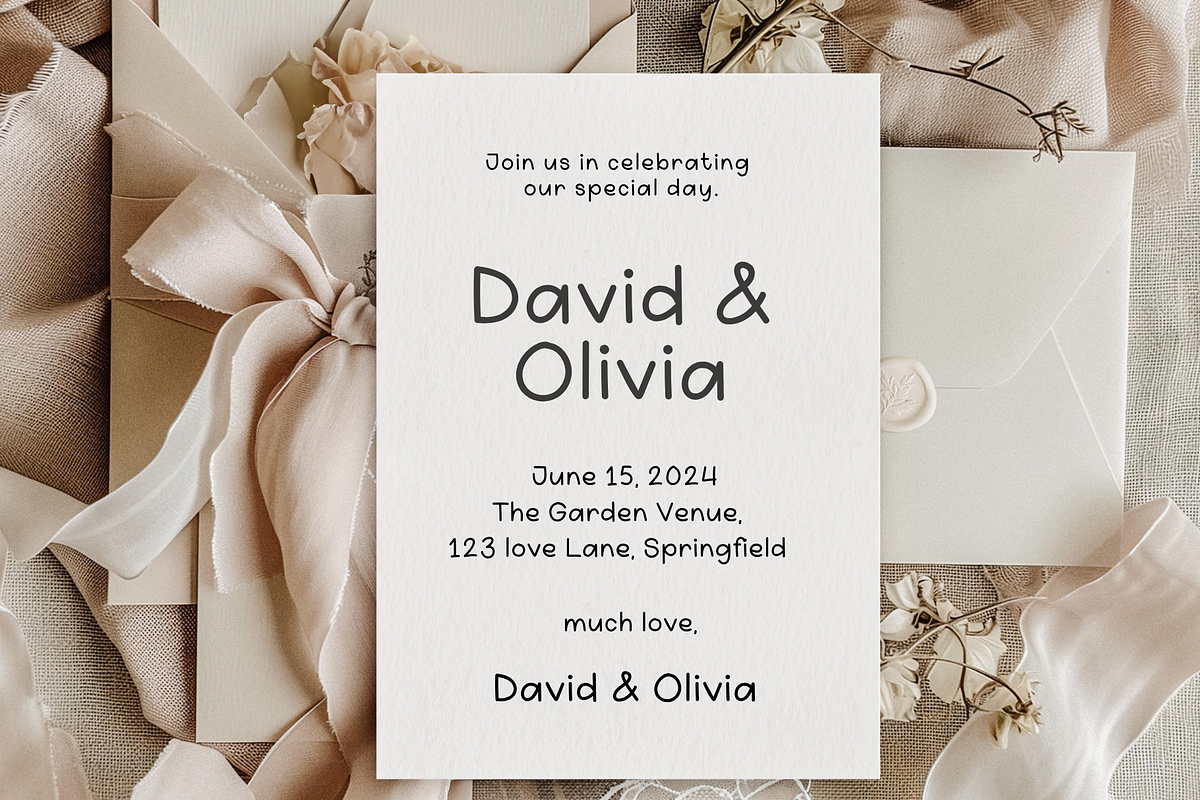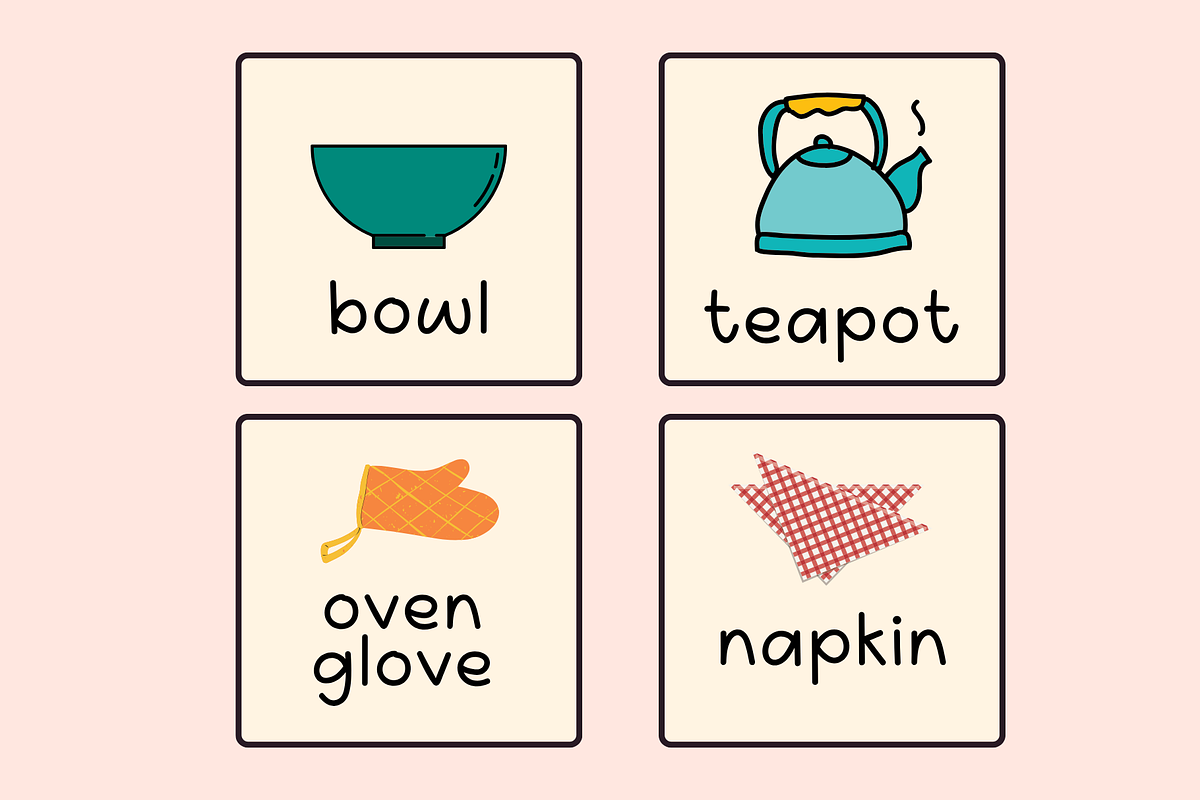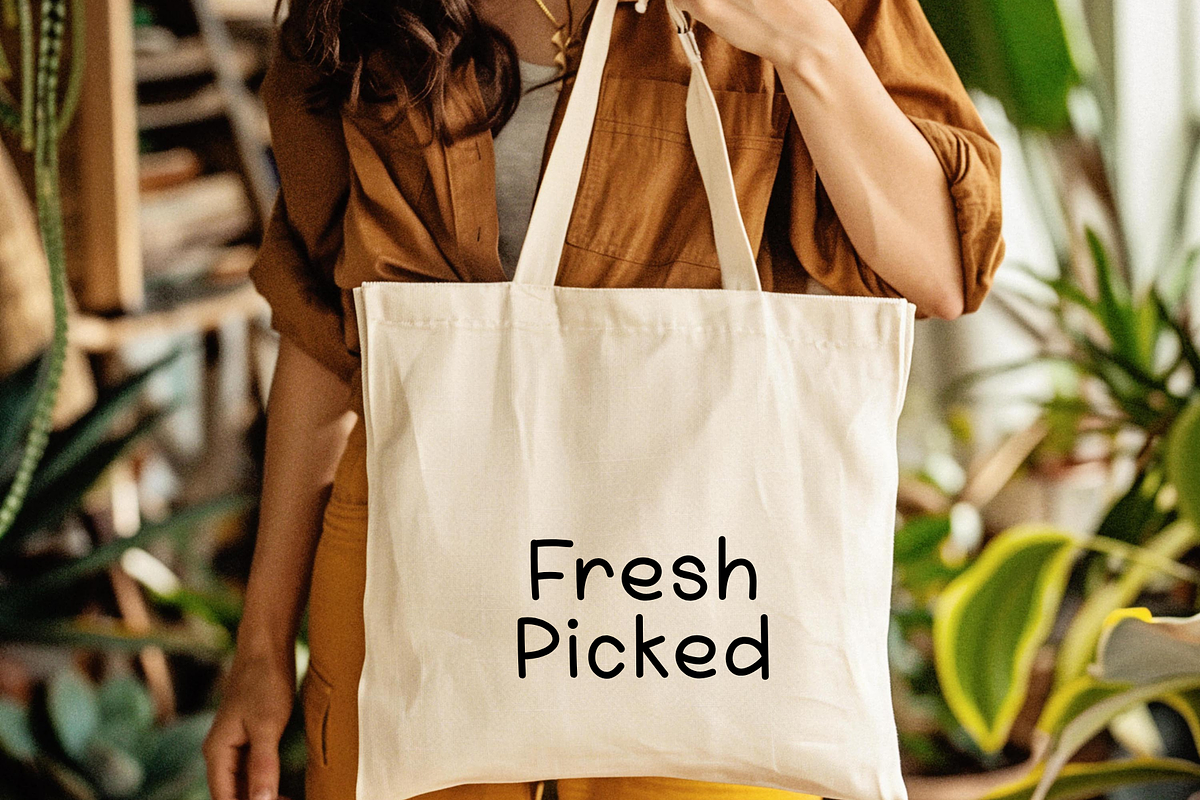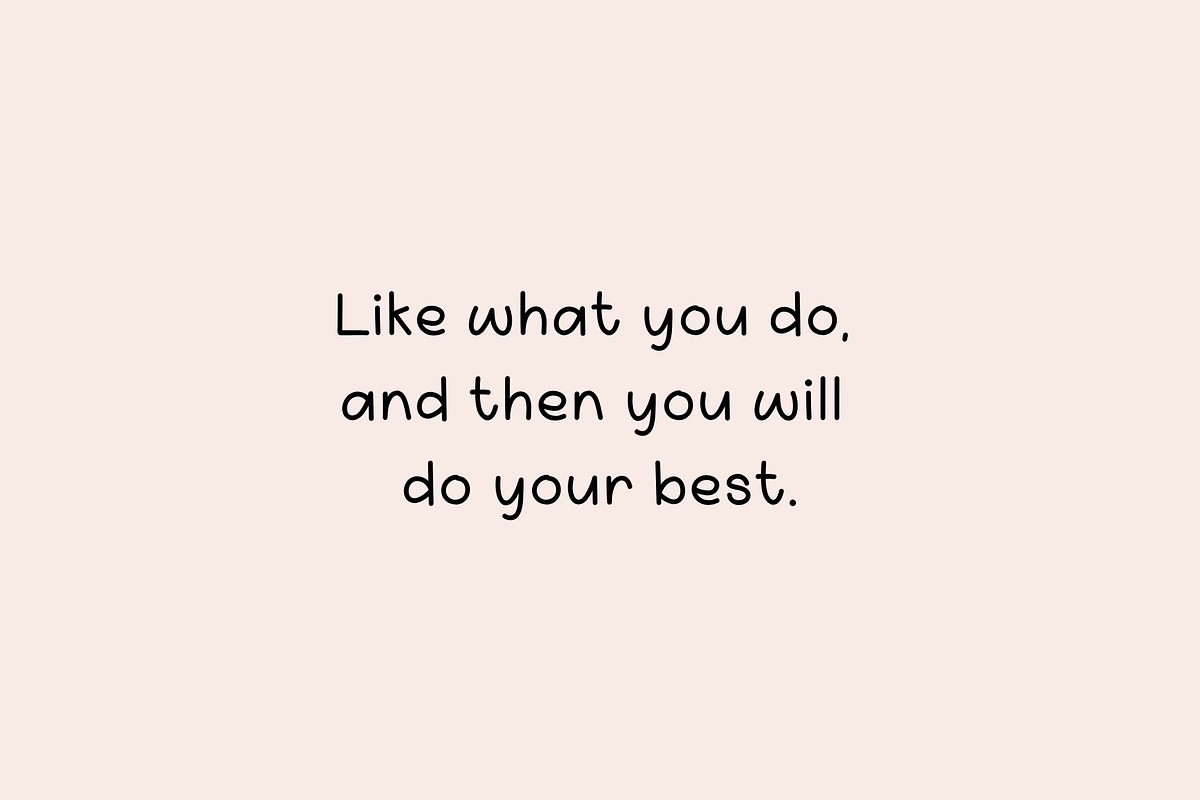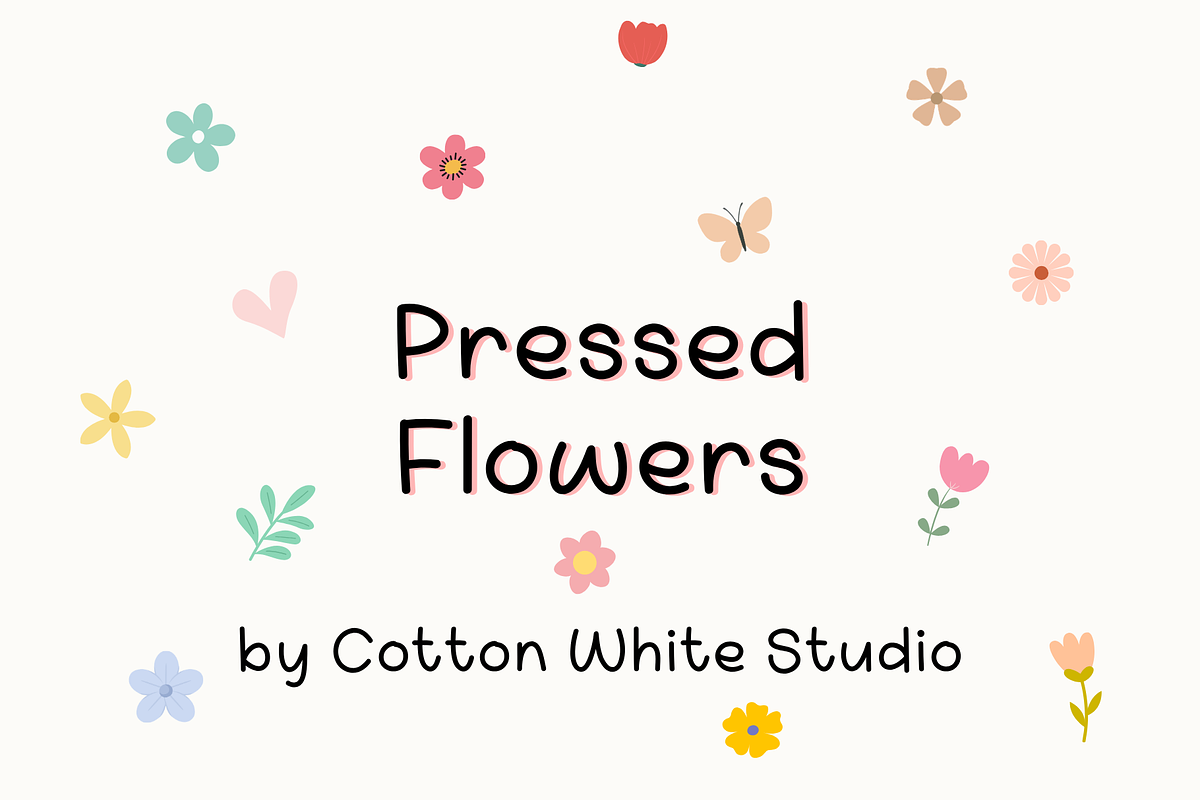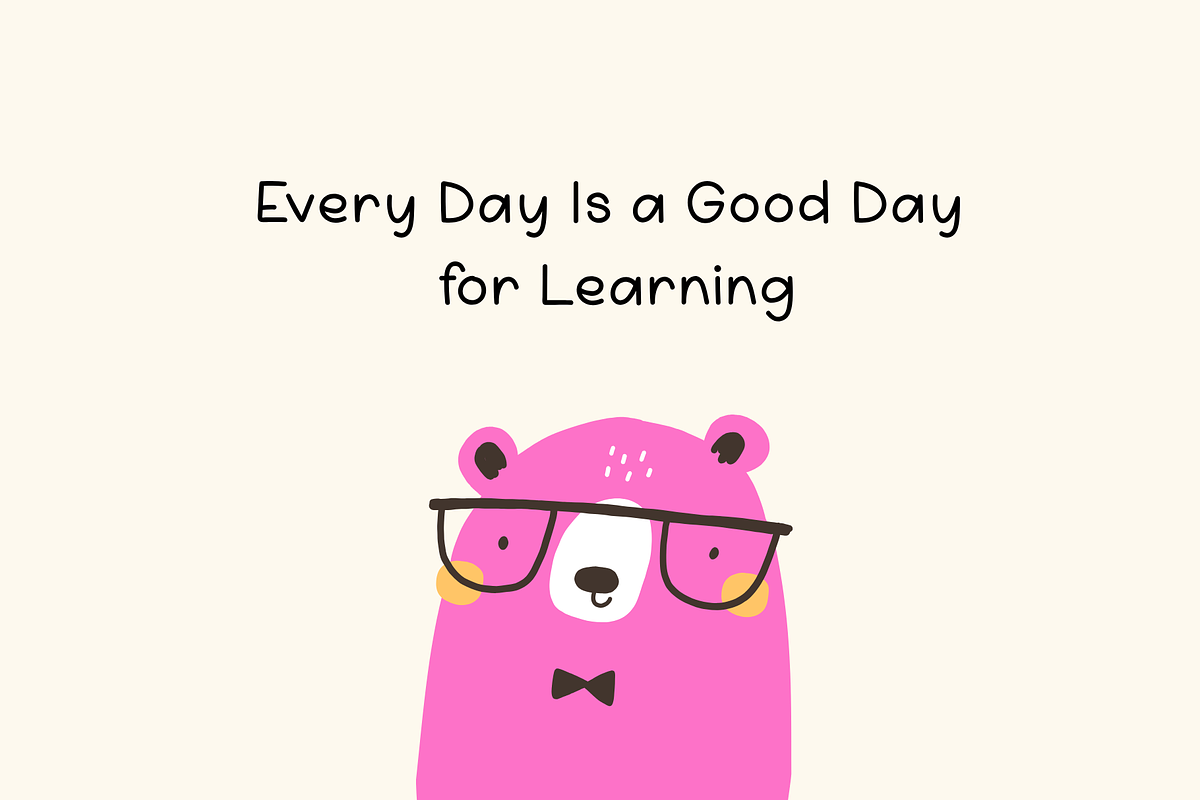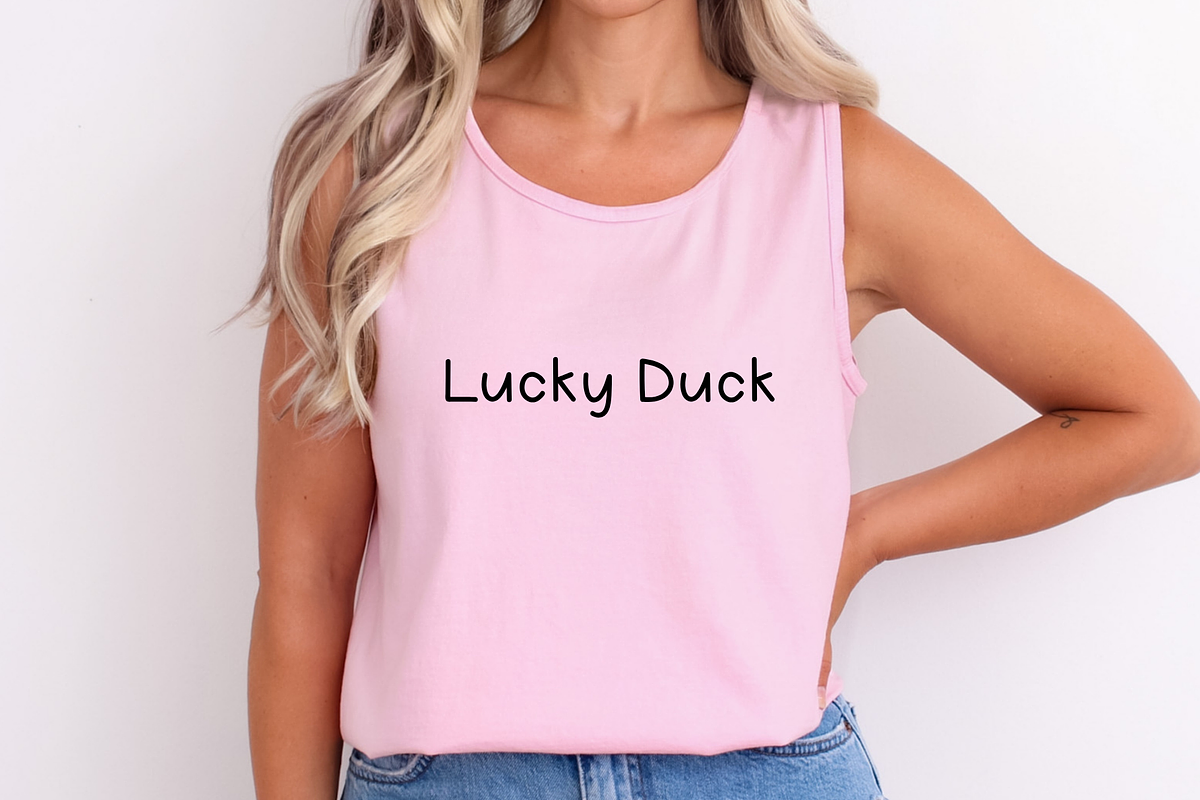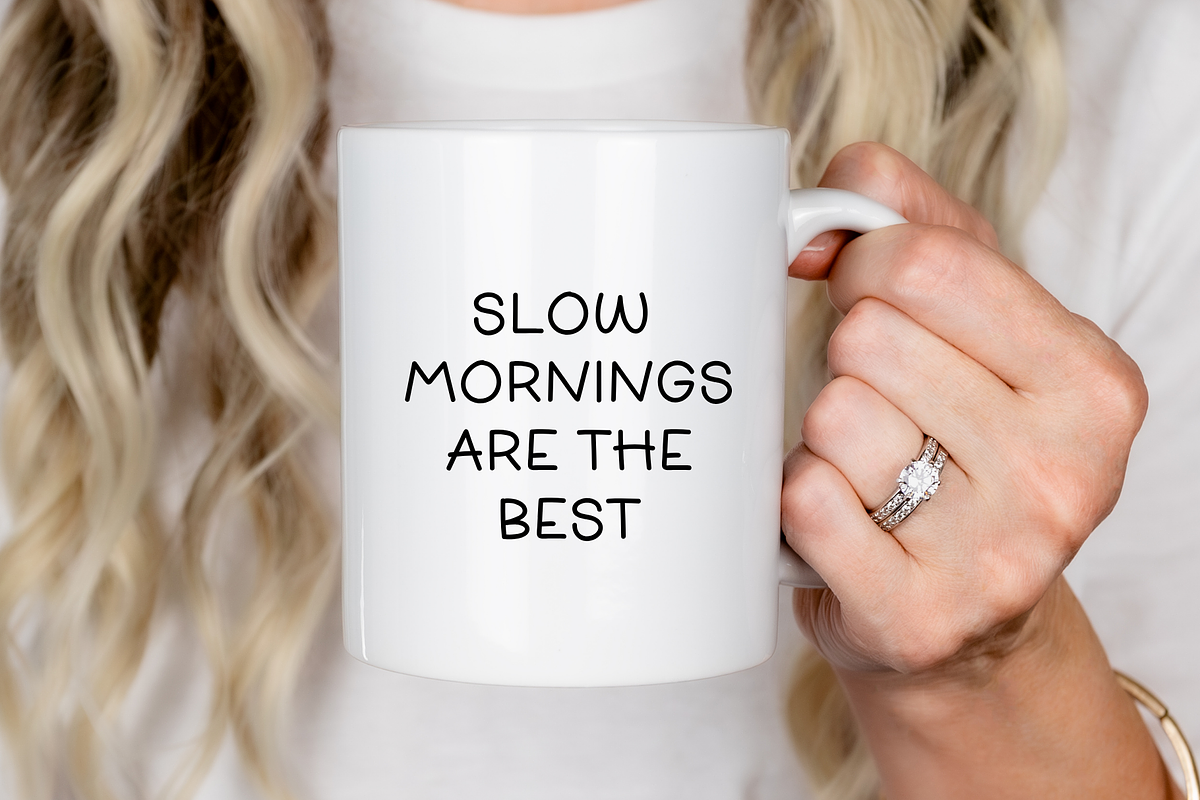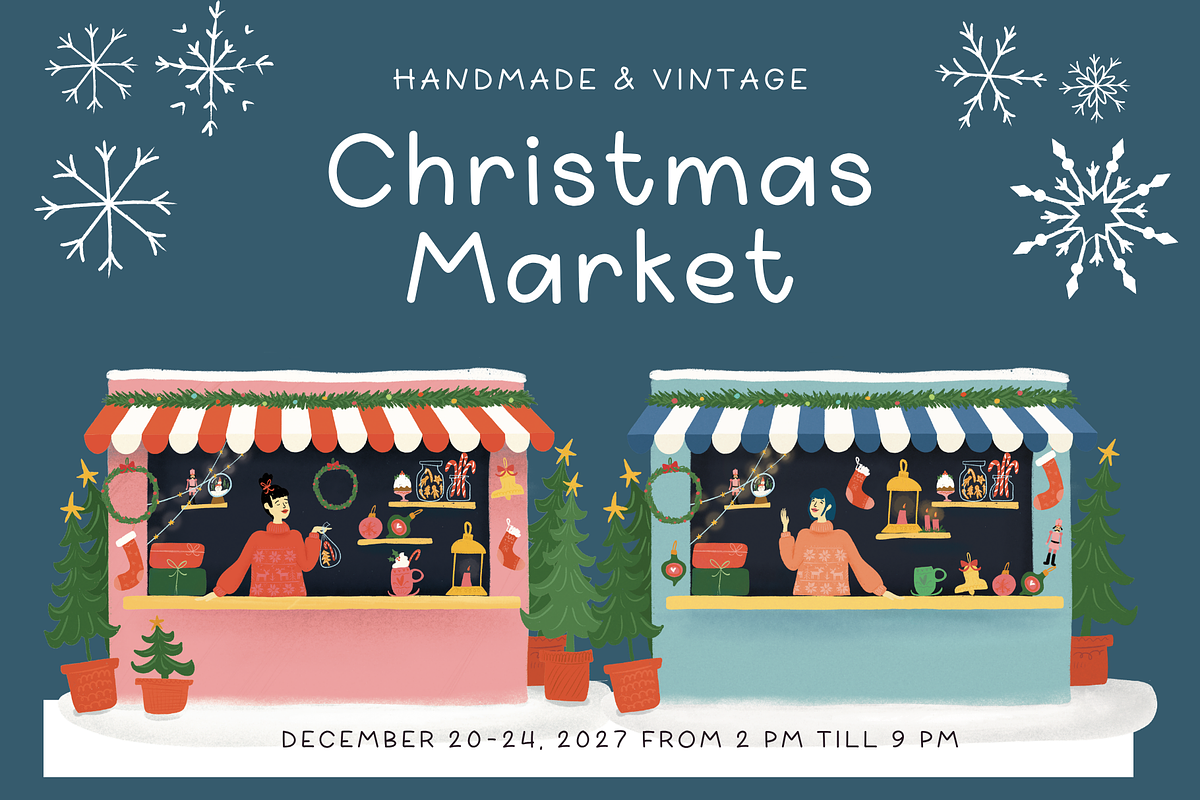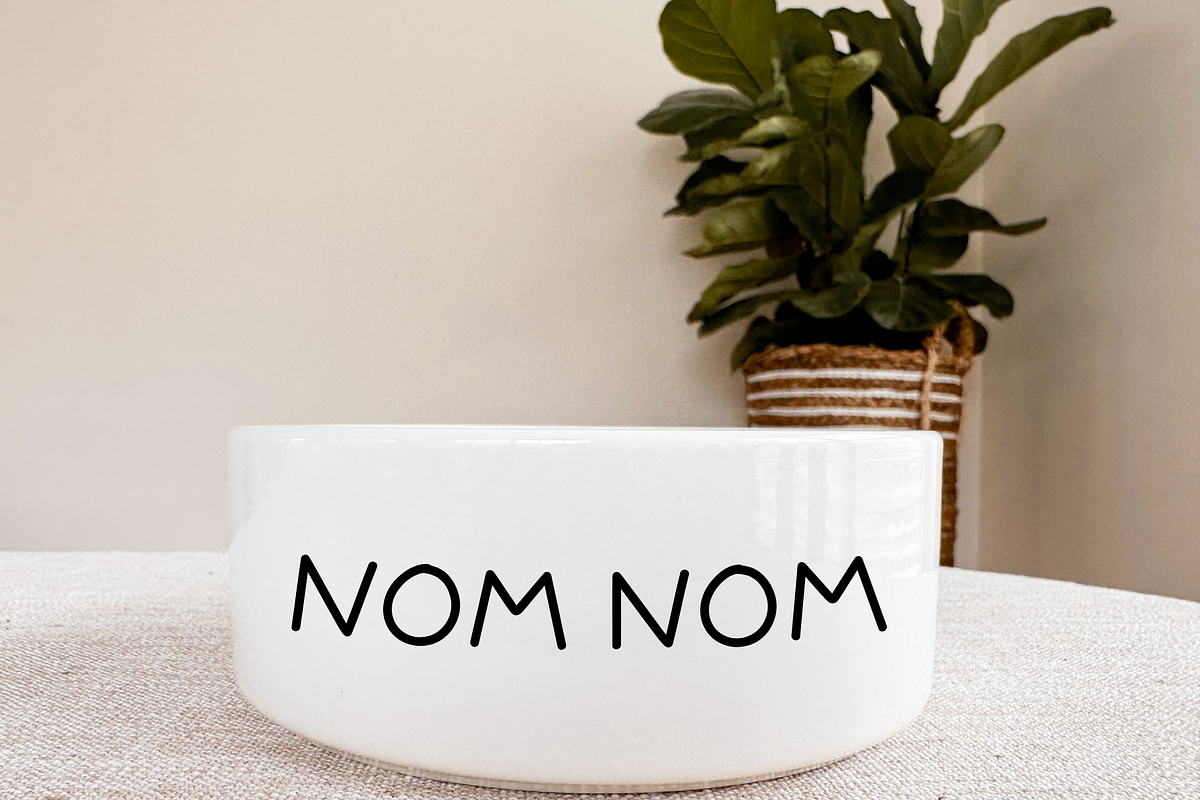
Pressed Flowers
Pressed Flowers is a sweet and playful handwritten display font inspired by pressed petals, handmade crafts, children's books, market signs, and cozy everyday moments. Featuring rounded letterforms, soft curves, and an organic hand-drawn feel, this font brings warmth, charm, and personality to every design.
Perfect for product packaging, market signage, greeting cards, nursery decor, wedding stationery, café menus, handmade businesses, seasonal promotions, Christmas markets, tote bags, mugs, stickers, labels, and social media graphics. Whether you're creating playful branding, event invitations, or modern handmade products, Pressed Flowers adds a cheerful touch.